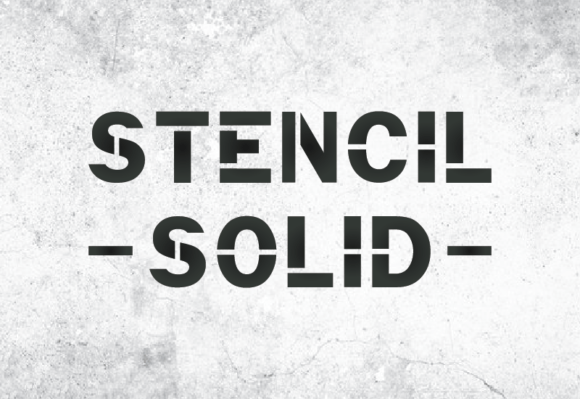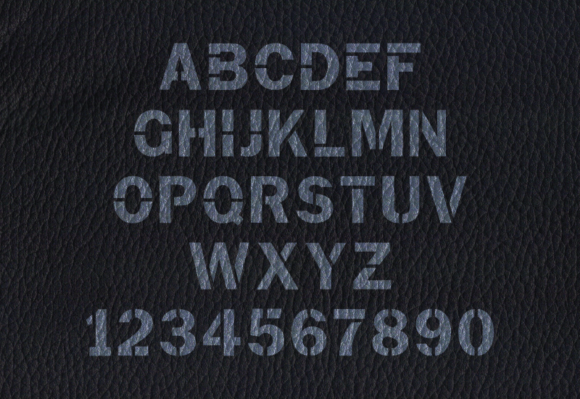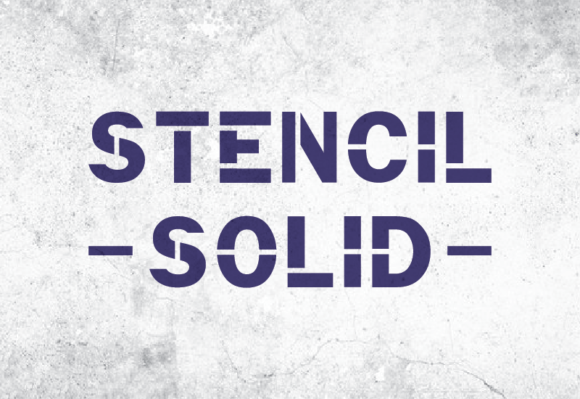
Stencil Solid Font
Stencil Solid is a typeface that exudes an aura of rugged sophistication. Its bold, chiseled characters command attention with an assertive presence while maintaining an air of refined craftsmanship. Each letter is meticulously designed, balancing the sharp edges of a stencil cut with a subtle touch of elegance.
The robust strokes create a sense of durability and reliability, making Stencil Solid an ideal choice for projects that demand strength and style. This font strikes a harmonious balance between tradition and modernity, offering a versatile tool for conveying messages that are both timeless and impactful.